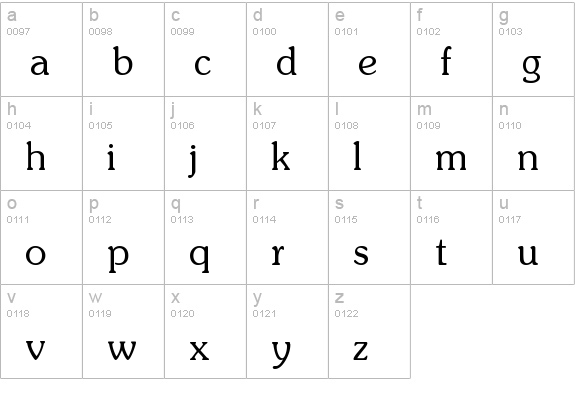
Soutane Regular Font Details
Soutane Regular is the standard, neutral variant in the Soutane typeface family \xE2\x80\x94 well suited to general body text, paragraphs, and standard typographic work.
Soutane Regular font is a versatile and elegant typeface that combines classic elements with a modern twist. Its clean and refined lines make it perfect for a wide range of applications, from branding and advertising to editorial design and packaging. The Soutane Regular font features a balanced and harmonious letterform that exudes sophistication and professionalism. Its tall and slender characters create a sense of elegance and grace, making it a popular choice for high-end luxury brands, fashion magazines, and upscale events. What sets Soutane Regular font apart is its versatility and adaptability. It can effortlessly adapt to various design styles, from minimalist and contemporary to more elaborate and decorative. Its versatility makes it an ideal choice for designers who want to create impactful and visually striking designs. One of the best things about Soutane Regular font is that it is available for free download at FontsMarket.com. This means that designers and creatives can access this beautiful typeface without any cost, expanding their design possibilities without breaking the bank. Whether you're a professional designer or a passionate hobbyist, Soutane Regular font is a valuable asset to have in your design toolkit. Its timeless design and wide range of applications make it a go-to choice for any project. So why wait? Head over to FontsMarket.com and download Soutane Regular font today, and let your creativity soar to new heights.